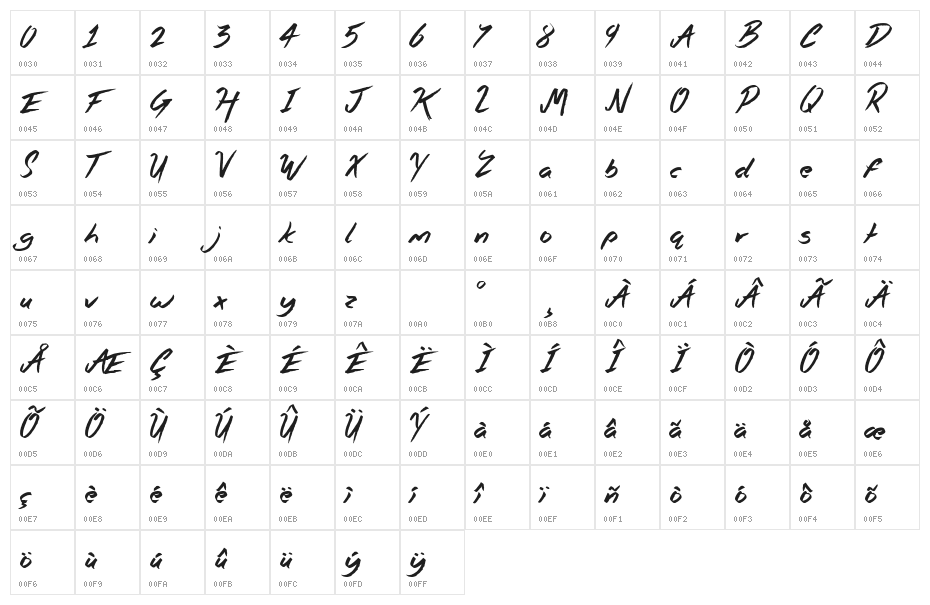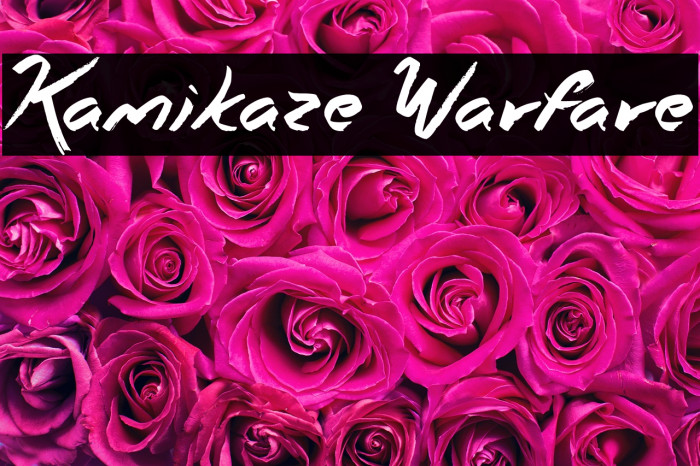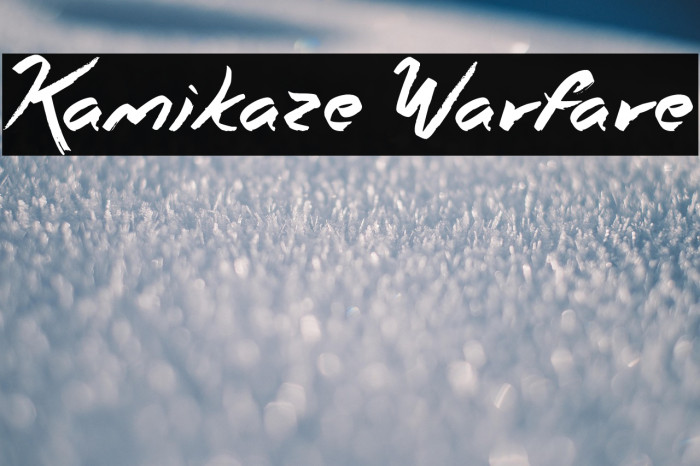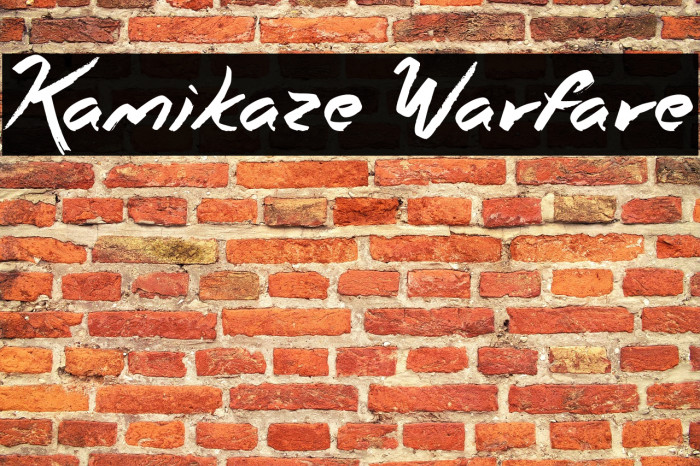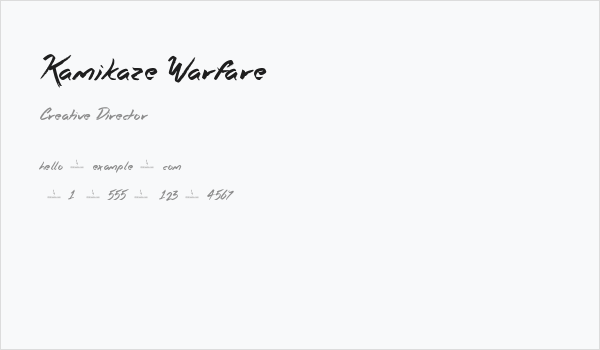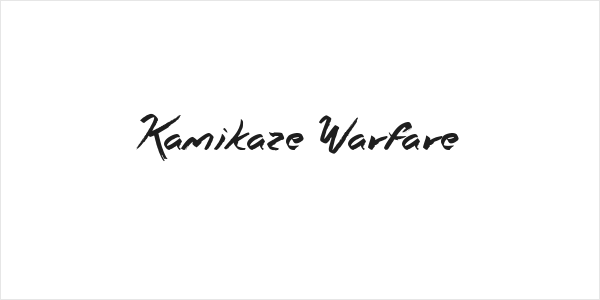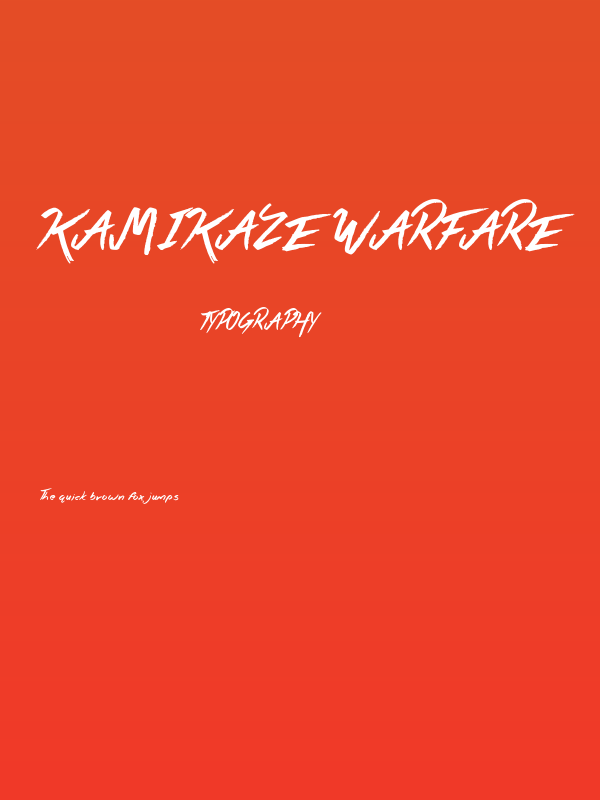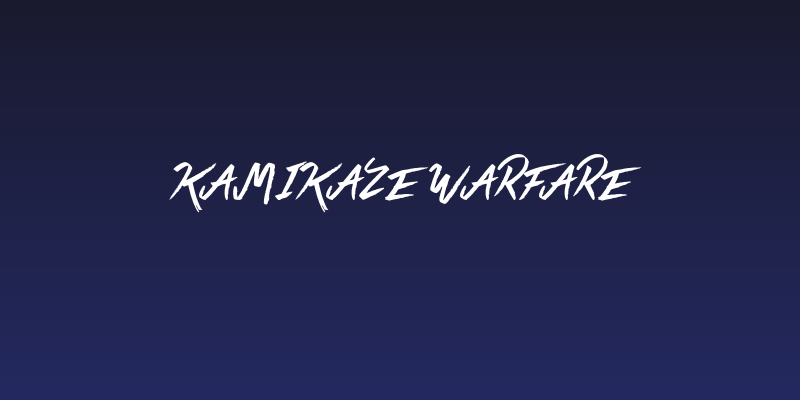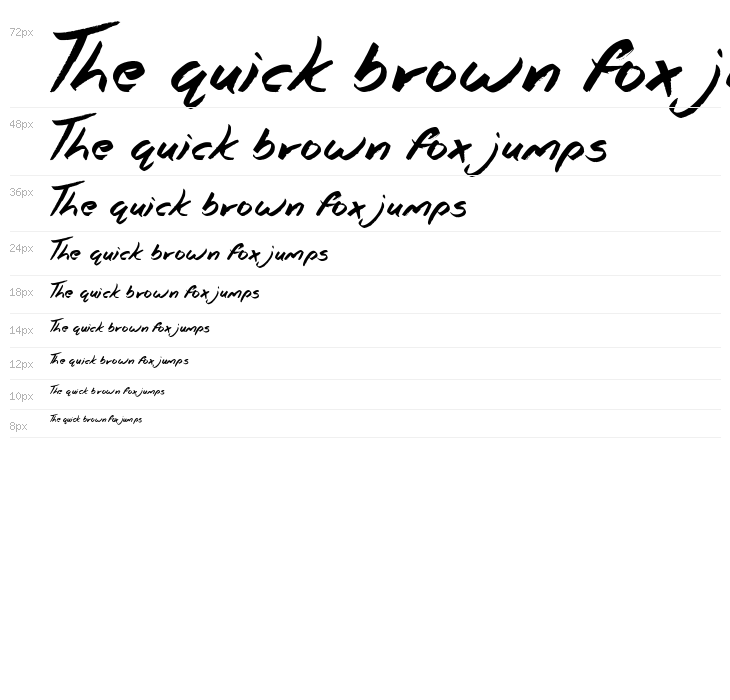
Kamikaze Warfare Font
Kamikaze Warfare Description
This font exhibits a dynamic and energetic style, characterized by its bold, brush-like strokes that convey a sense of motion and intensity. The letters are crafted with a slight slant, adding to the impression of speed and fluidity. The uppercase and lowercase letters maintain a consistent style, with sharp edges and varying stroke widths that create a striking visual contrast. The numerals and special characters are equally expressive, fitting seamlessly with the overall aesthetic. This font's unique design makes it ideal for projects that require a strong, impactful visual presence.